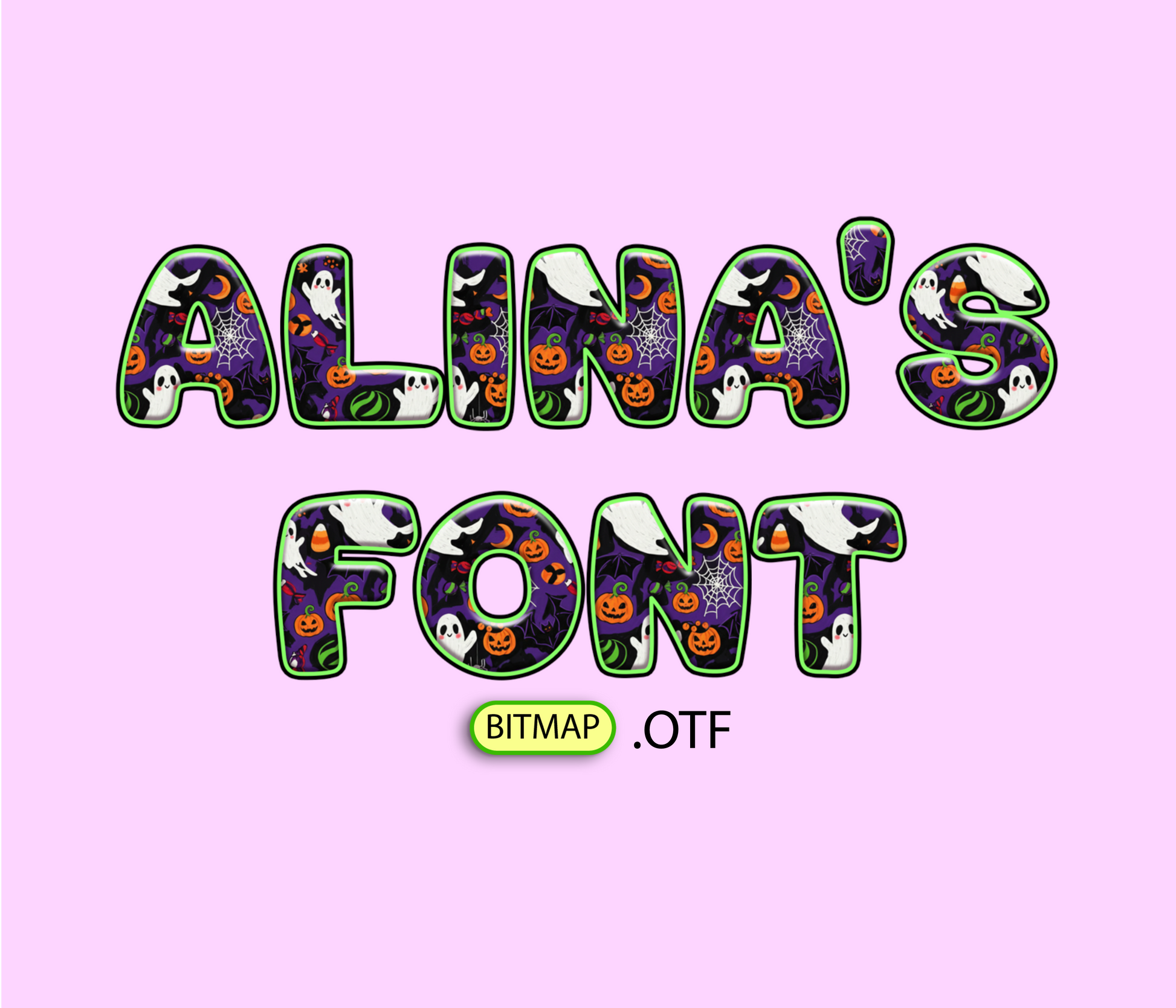
Friendly Pumpkin Spirits Pattern Font
Step into the whimsical world of adorable autumn specters with our Friendly Spirits font, capturing the essence of charming ghosts and cozy Halloween celebrations. Perfect for party planners, crafters, event organizers, and designers, this font brings the playful, inviting spirit of cheerful phantoms to your projects. Create delightful materials, merchandise, or digital content with the heartwarming energy of sweet spooks.
Our Friendly Spirits font features soft, rounded lines and cheerful characters reflecting the world of lovable ghosts. Ideal for:
- Event Promotions: Create charming invites, posters, and banners for Halloween parties, fall festivals, and seasonal gatherings that capture the spirit of adorable specters
- Merchandise Design: Perfect for t-shirts, posters, and accessories that showcase the cozy aesthetic of friendly phantoms and autumn celebrations
- Digital Media: Enhance websites, blogs, and social media with inviting headers and graphics that express the warmth of sweet Halloween spirits
- Seasonal Content: Add authentic flair to party decorations, fall projects, and creative designs inspired by cheerful ghost tales
- Personal Projects: Bring cozy excitement to scrapbooking, DIY crafts, and home decor inspired by the world of lovable specters
Our font pays tribute to the iconic world of adorable Halloween celebrations, empowering your designs with its warm and playful spirit. Whether crafting promotional materials, designing merchandise, or adding a cheerful touch to personal projects, this font communicates the cozy essence of friendly ghosts. Ready to inject heartwarming charm into your creations? This font is your key to exciting, impactful design.